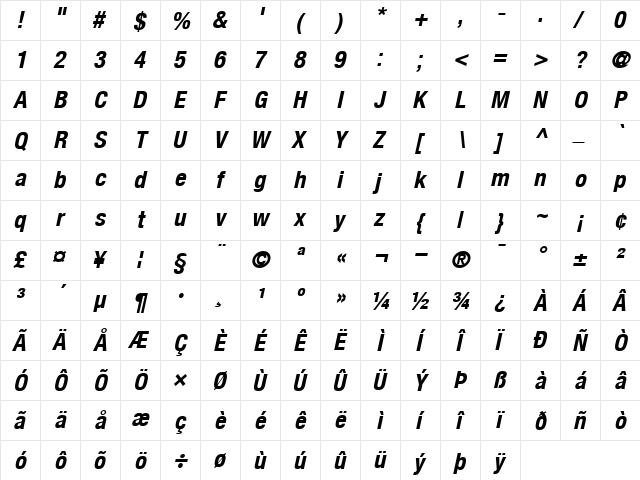
HelveticaNeue Cond BoldOblique Font Preview
Design Context for HelveticaNeue Cond Typeface
HelveticaNeue Cond offers clean, dependable letterforms without strong stylistic allegiance, making it a practical choice for designers who need flexibility. The dynamic lean of this cut emphasises speed and emphasis in any layout. Its bold stroke weight gives it real presence on the page. The condensed width makes it efficient for tight spaces without sacrificing legibility.
Pro Tip: Try HelveticaNeue Cond for annotation and caption copy alongside an upright companion — the contrast in angle creates a dynamic but ordered typographic system.